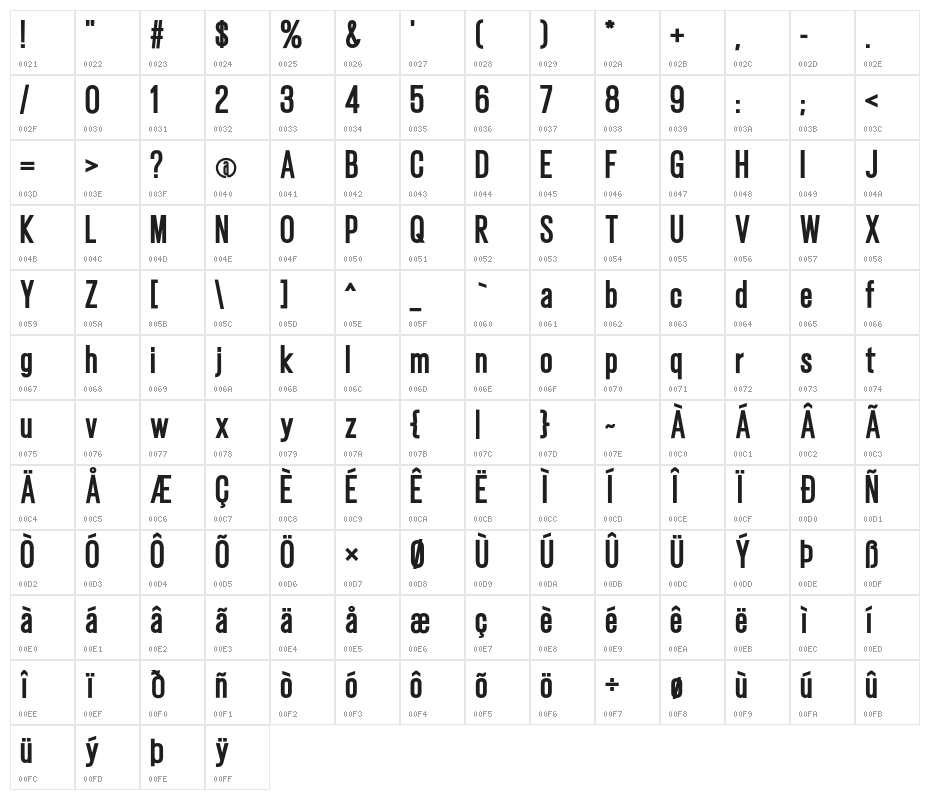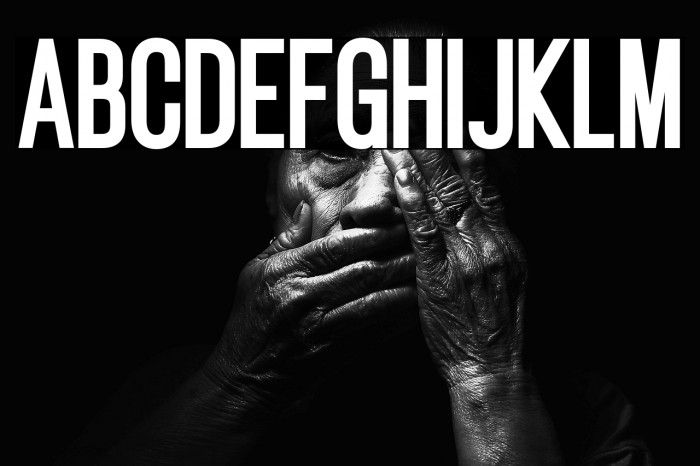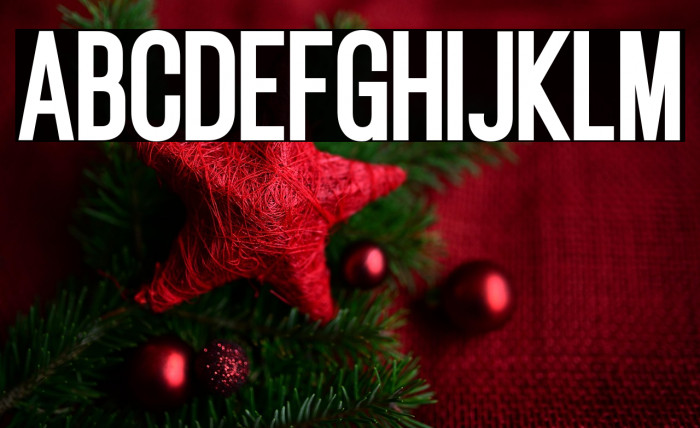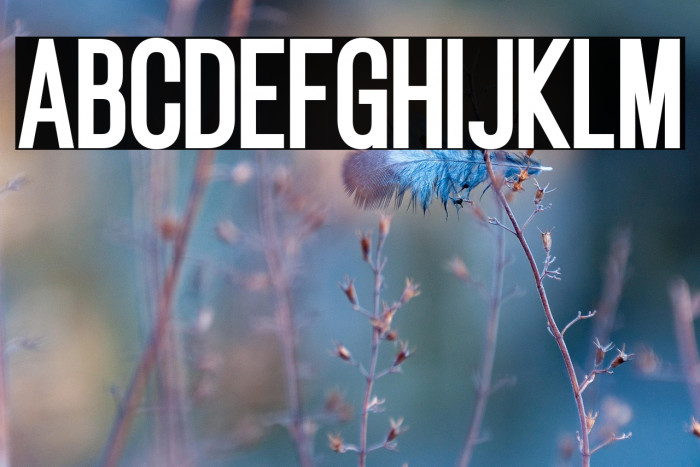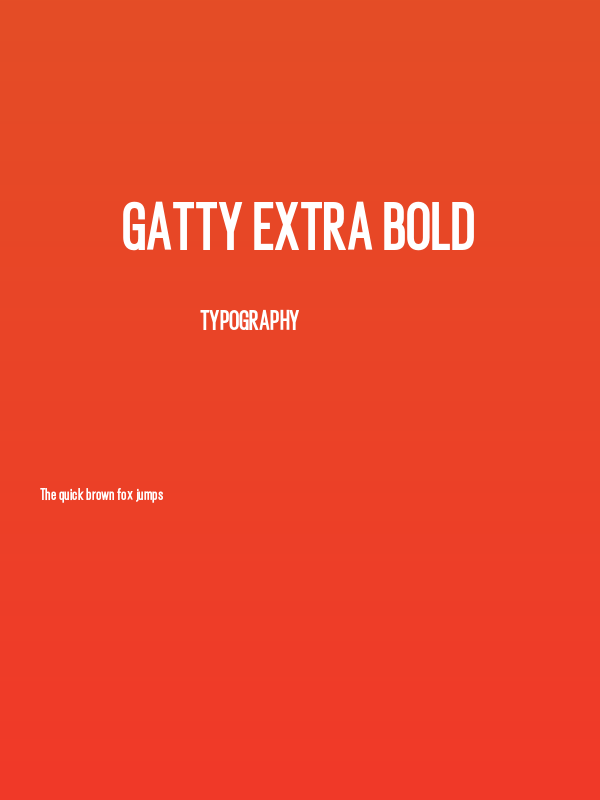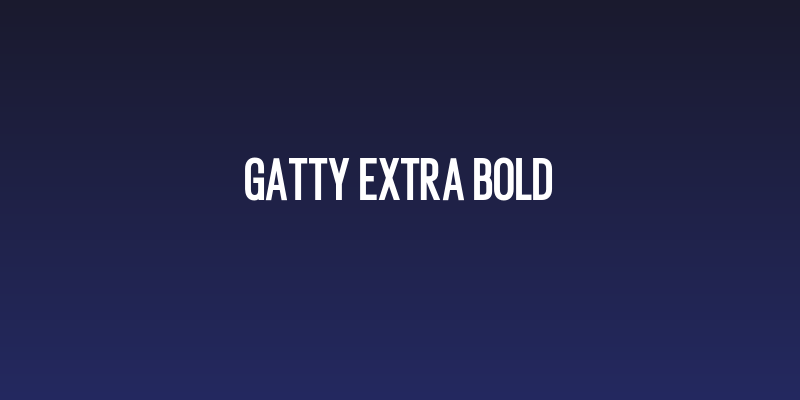
Gatty Extra Bold Font
Gatty Extra Bold Description
This font is characterized by its bold and impactful presence, featuring thick strokes and a strong visual weight. The uppercase and lowercase letters maintain a consistent height, contributing to a uniform and cohesive look. The numerals are equally bold, ensuring readability and emphasis. Special characters are designed with the same thickness, providing a harmonious appearance across all glyphs. The overall design is clean and modern, making it suitable for attention-grabbing headlines and titles.
| Proposed Projects | Ideal for branding, advertising, posters, and any project requiring a strong visual statement. |